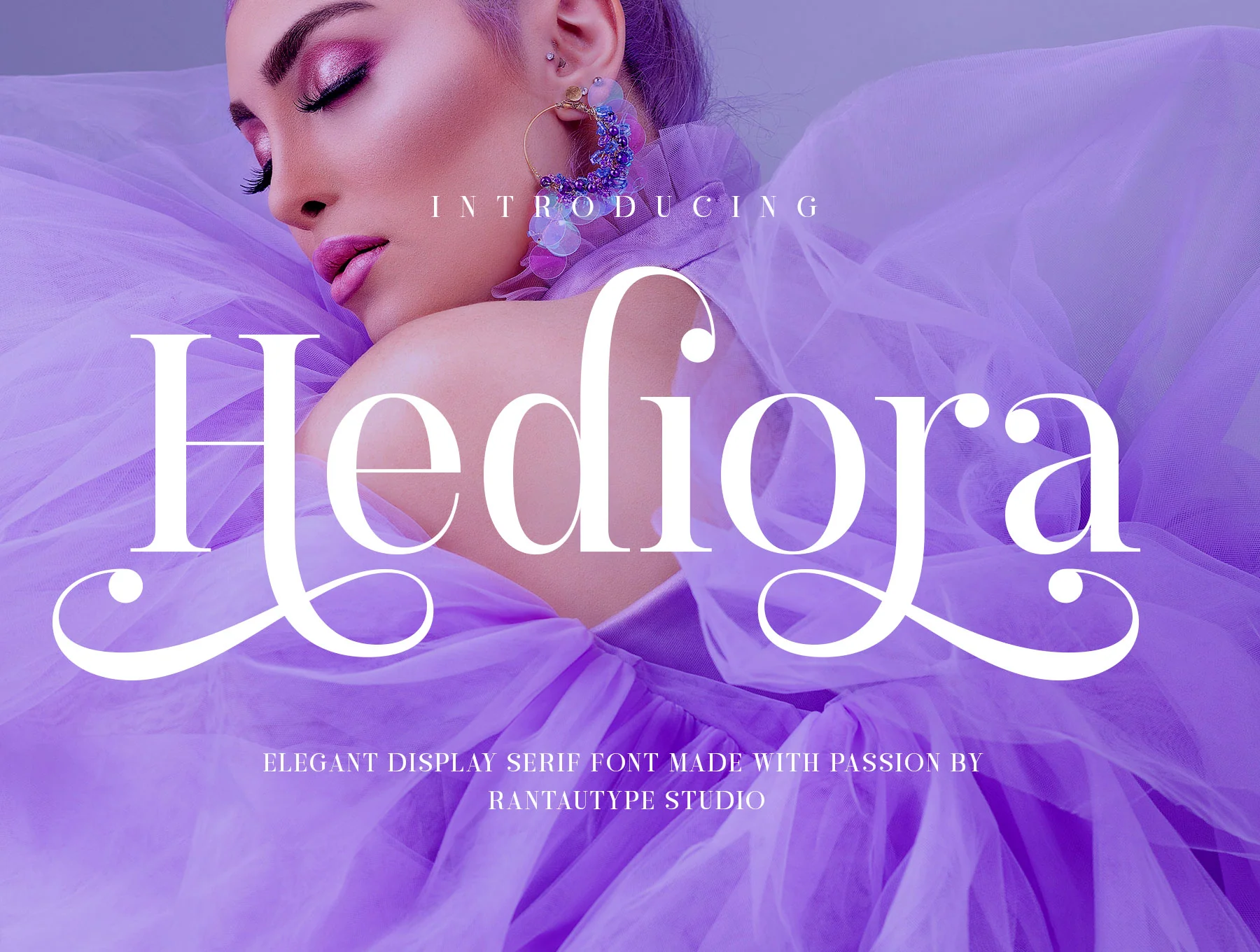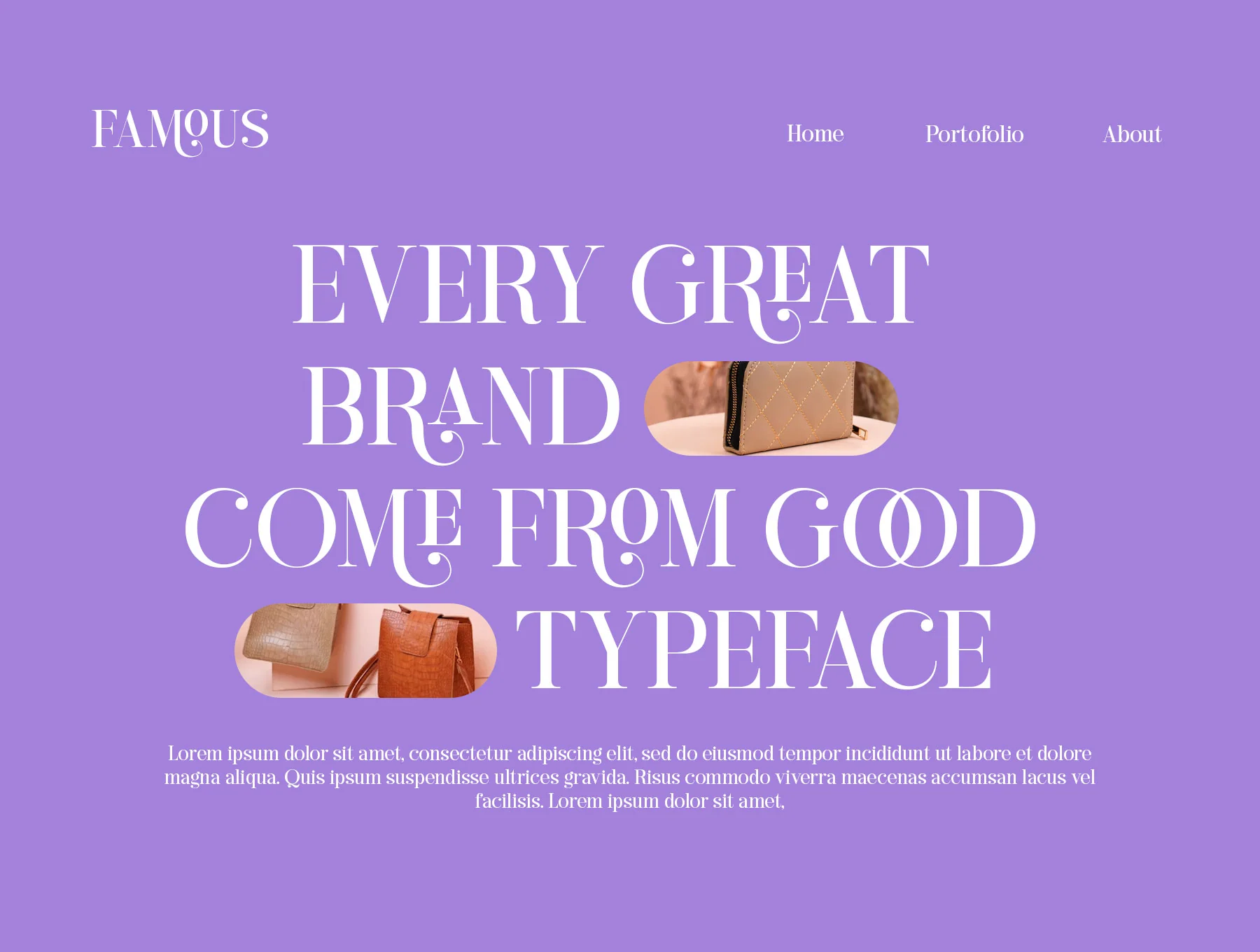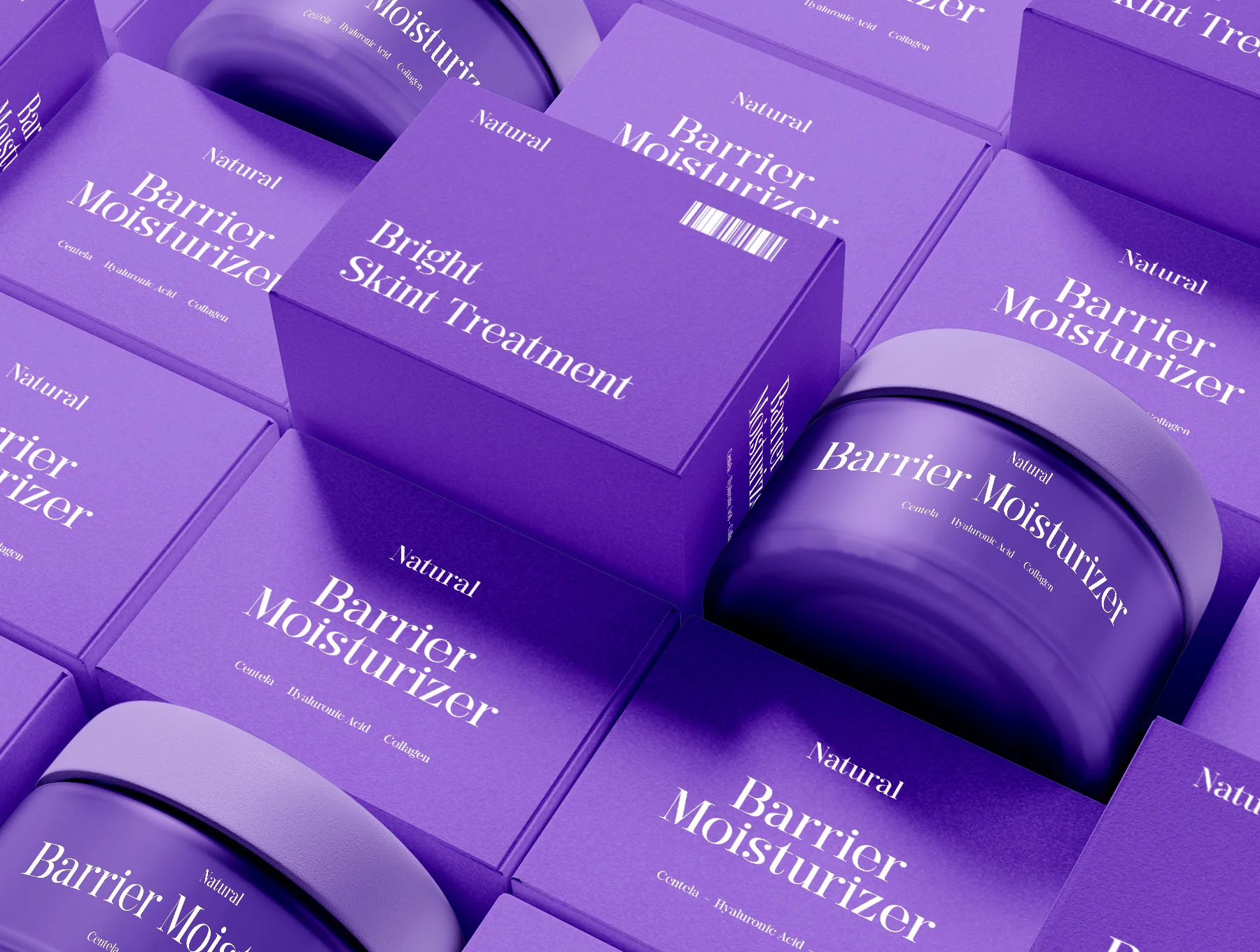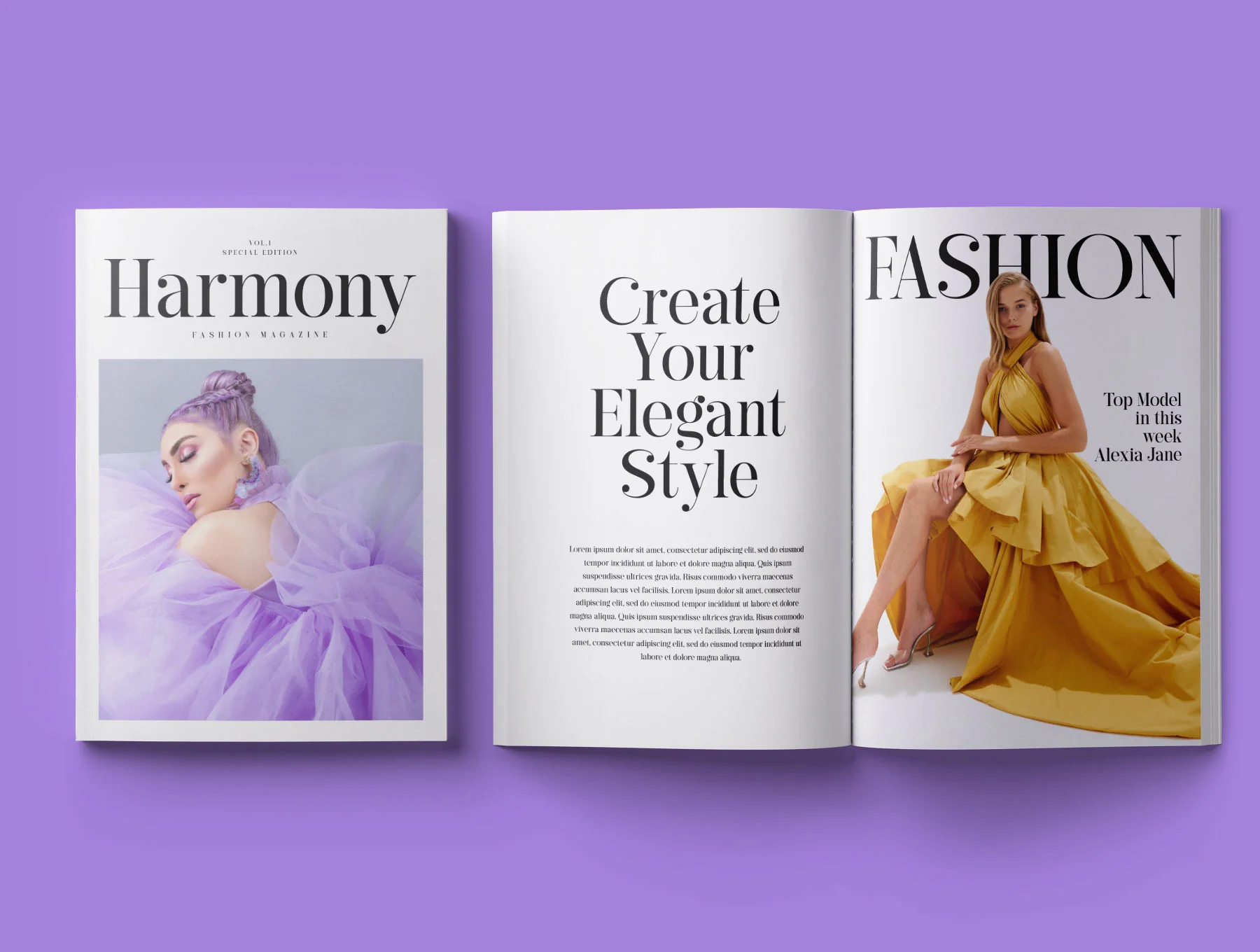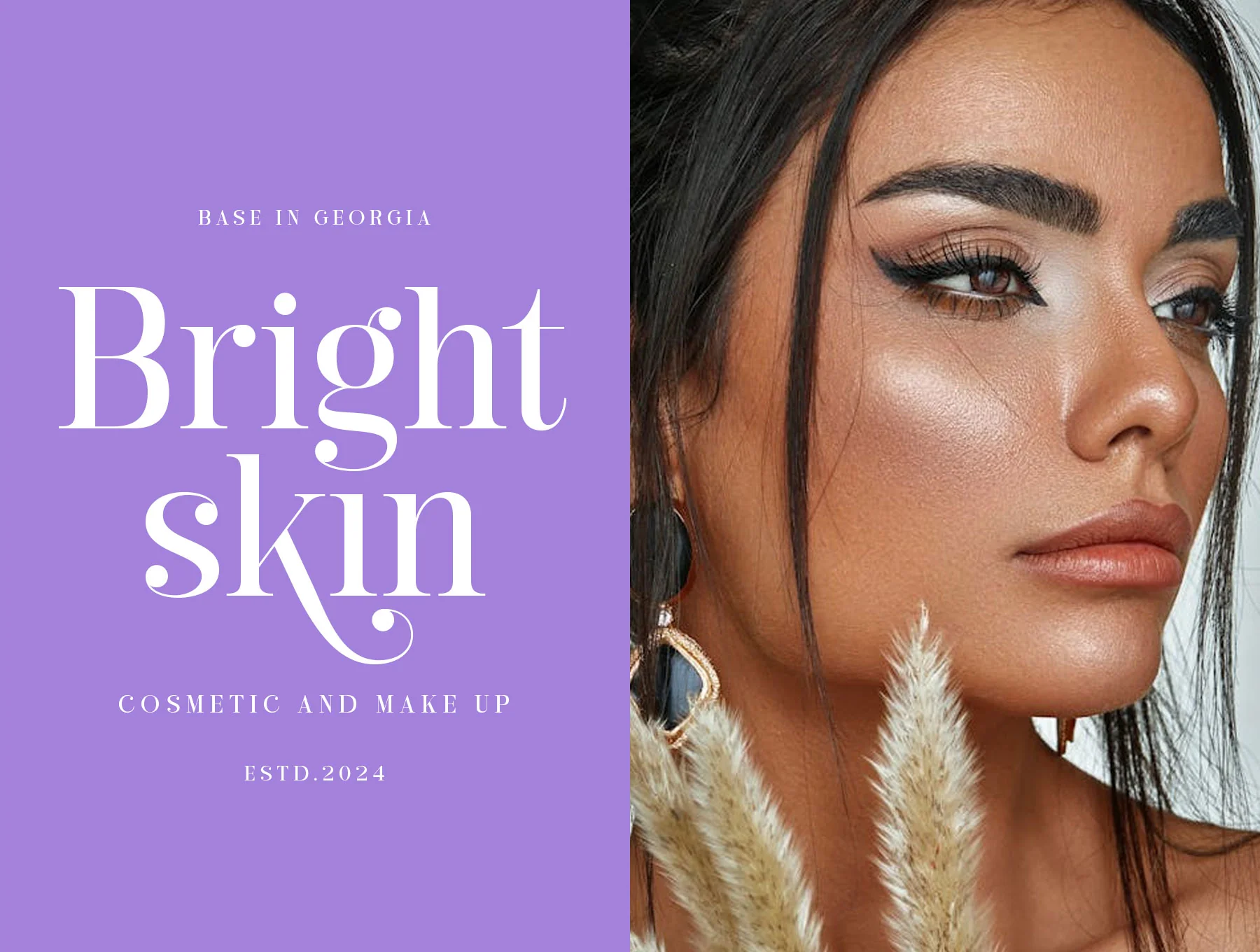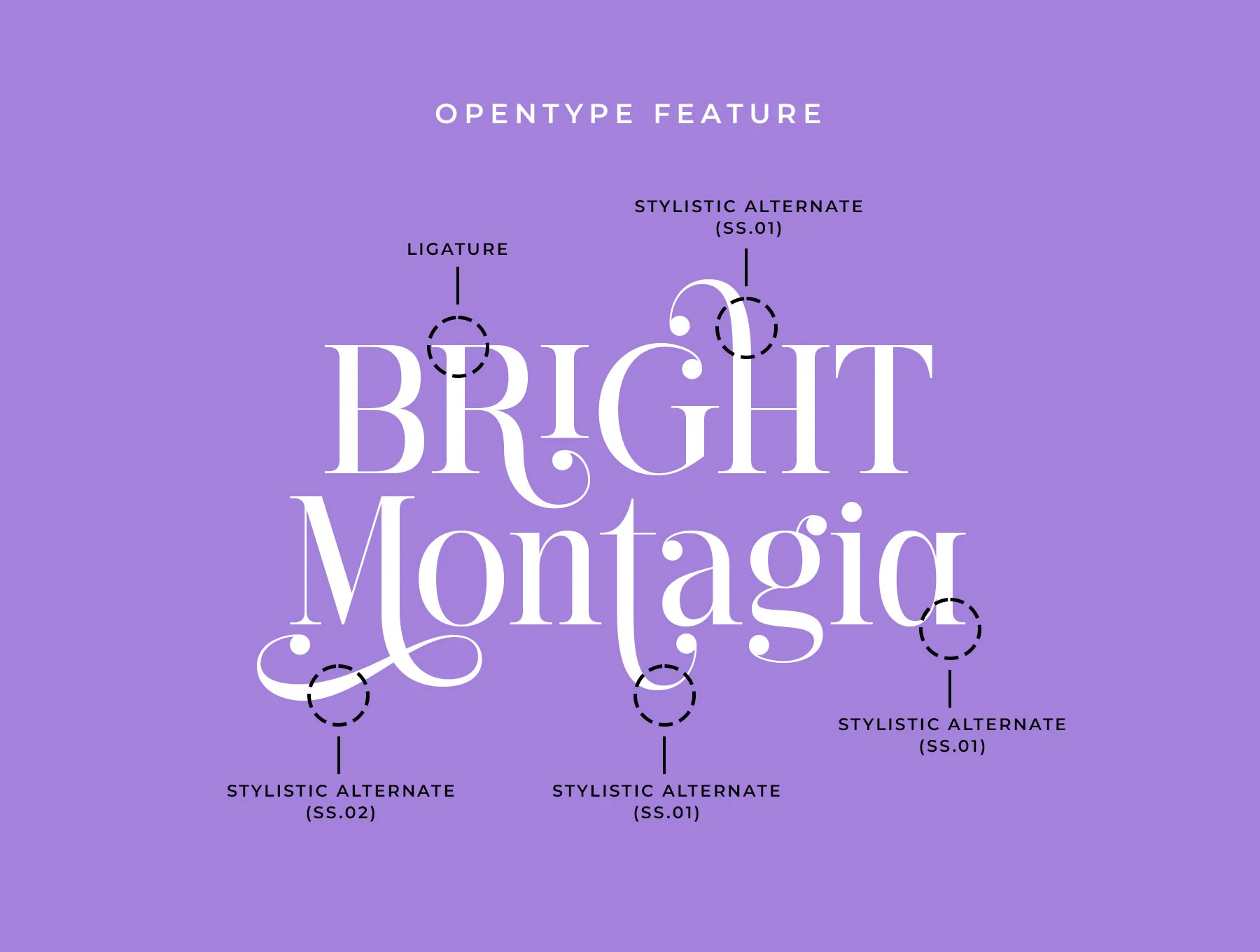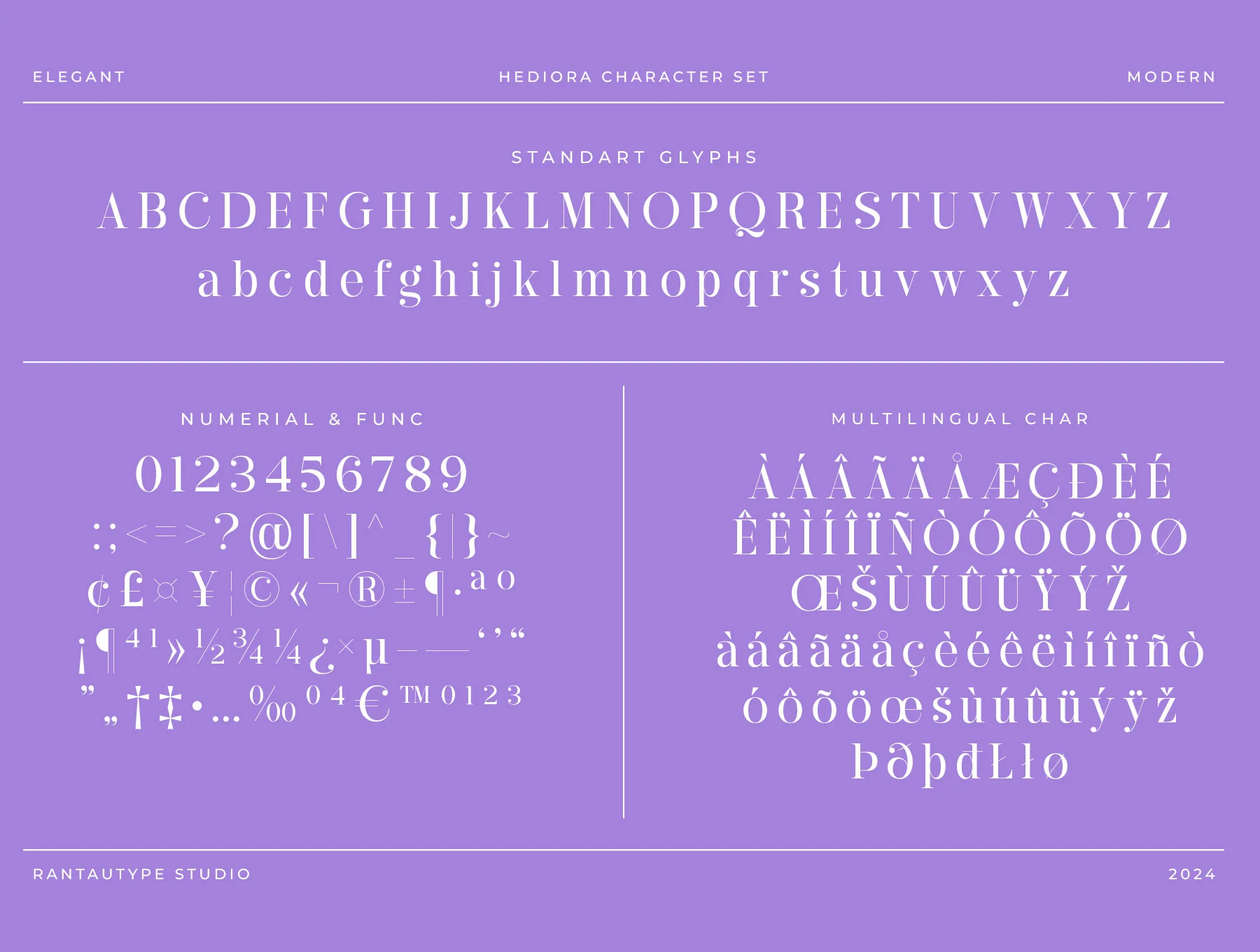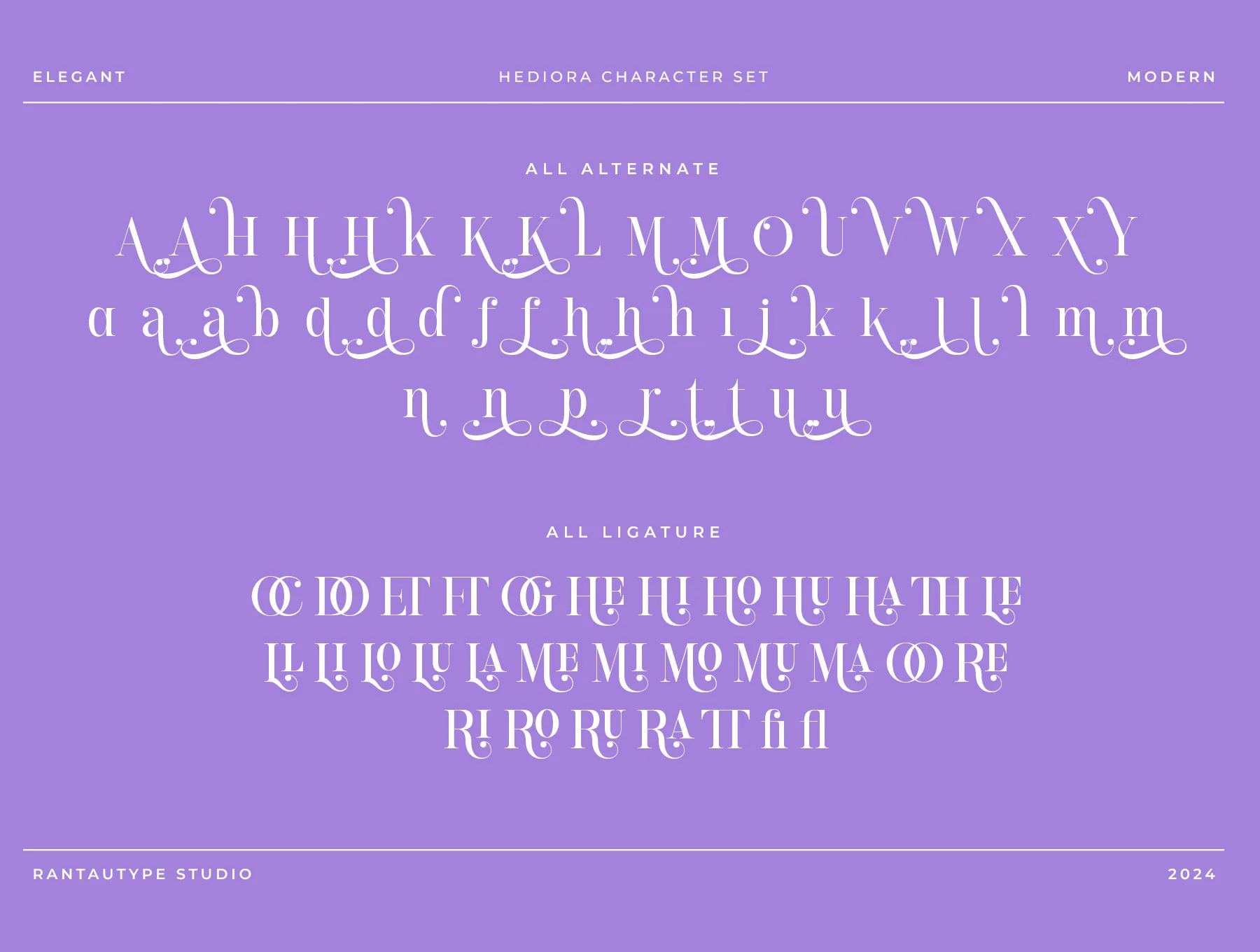
Hediora Elegant Display Serif Font
Hediora Refined Display Serif Typeface
Core character set included
Numerals plus practical symbols
Stylistic alternates with ligatures
Hediora is a refined serif typeface shaped by fashion aesthetics, with modern forms and a feminine feel. Ideal for logos, titles, covers, branding, invitations, wedding stationery, magazines, social posts, ads, quotes, packaging, labels, photography, watermarks, and elegant events. Includes Regular and Italic in OTF, TTF, WOFF, standard glyphs, numbers, ligatures, alternates, multilingual support, and PC/Mac compatibility.